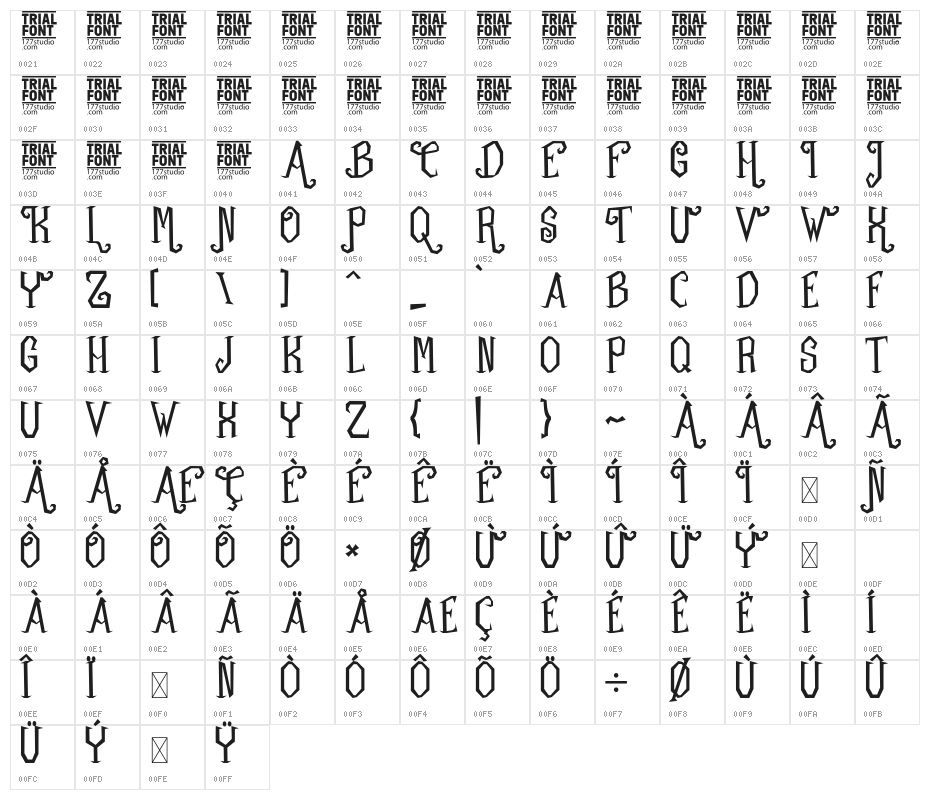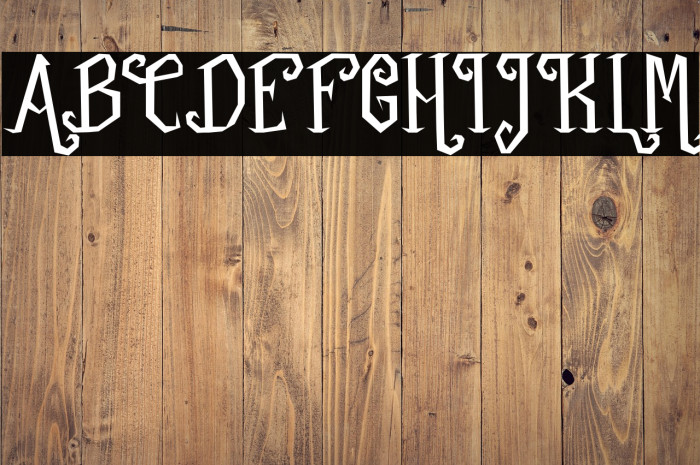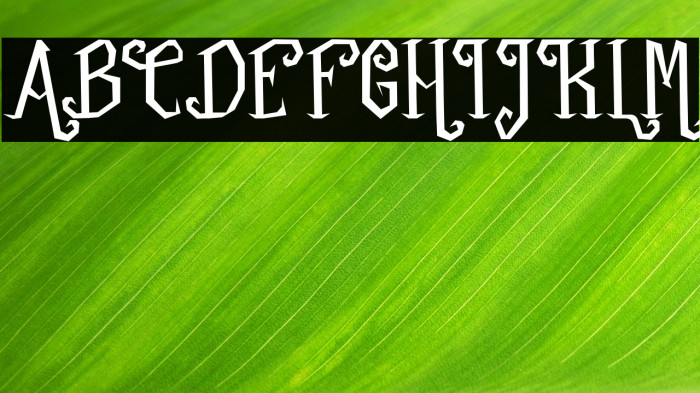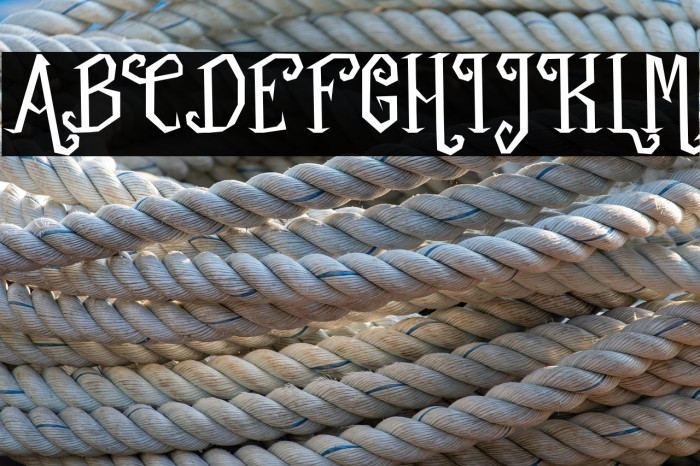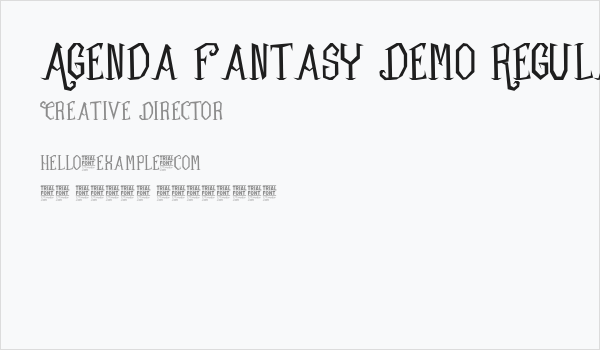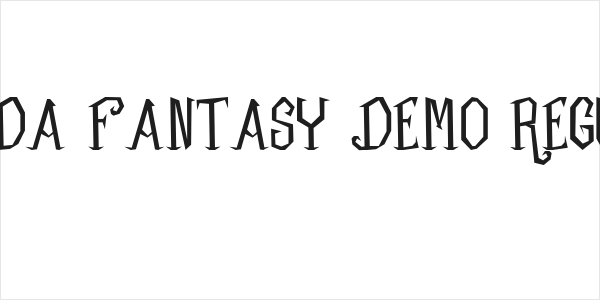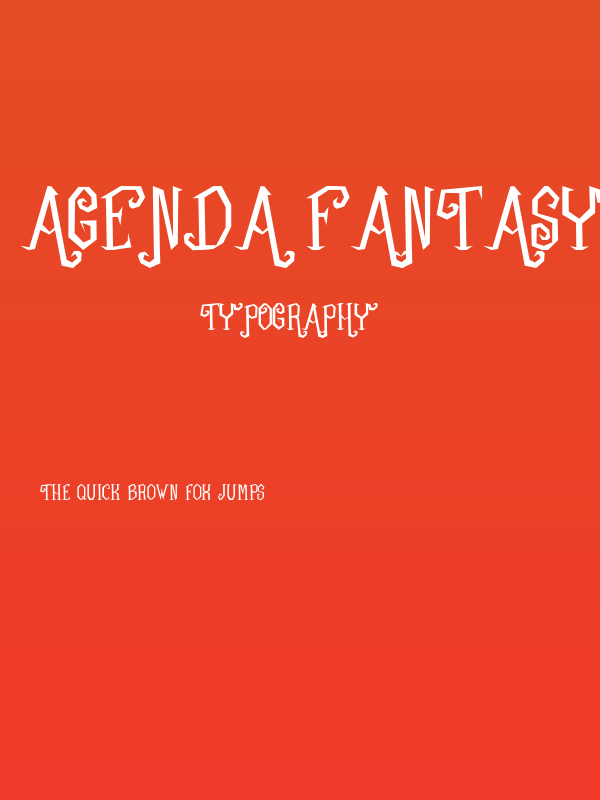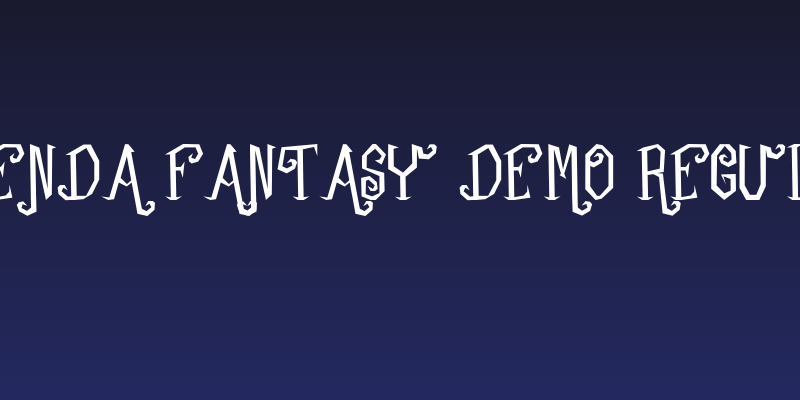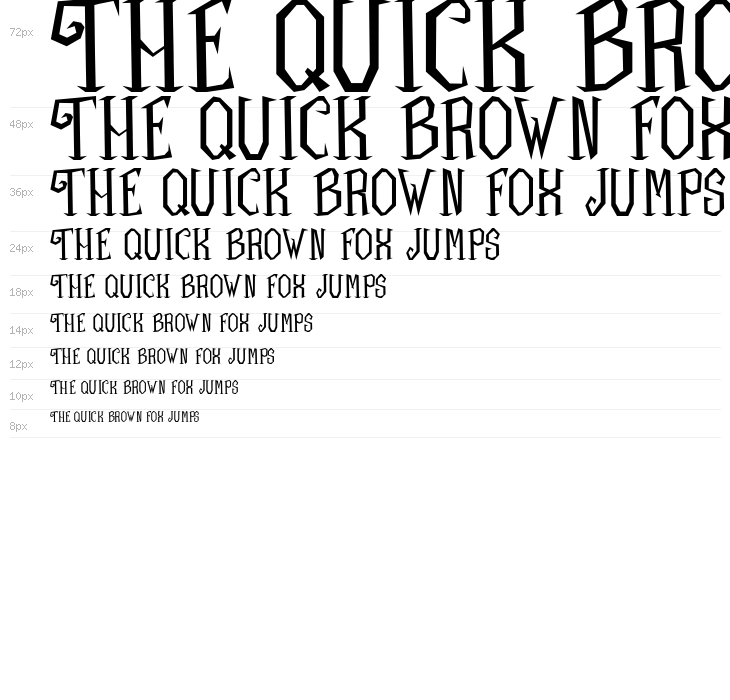
Agenda Fantasy Demo Regular Font
Agenda Fantasy Demo Regular Description
This font features a unique and decorative style with an intricate design that combines elements of fantasy and medieval aesthetics. The uppercase letters are characterized by sharp, angular lines and ornate details, giving them a distinct and eye-catching appearance. The lowercase letters maintain a similar style, ensuring consistency throughout the typeface. The numbers and special characters are designed to match the overall theme, making this font suitable for projects that require a touch of elegance and creativity. The bold strokes and decorative elements make it stand out, while the spacing between characters is balanced to ensure readability.
| Proposed Projects | Ideal for fantasy-themed book covers, video game titles, posters, and branding projects that require a touch of elegance and creativity. |